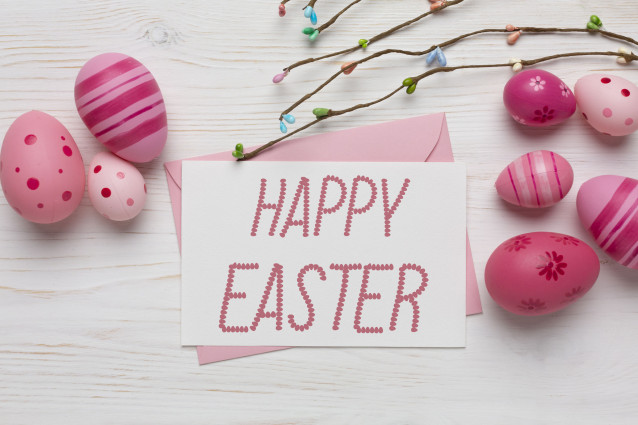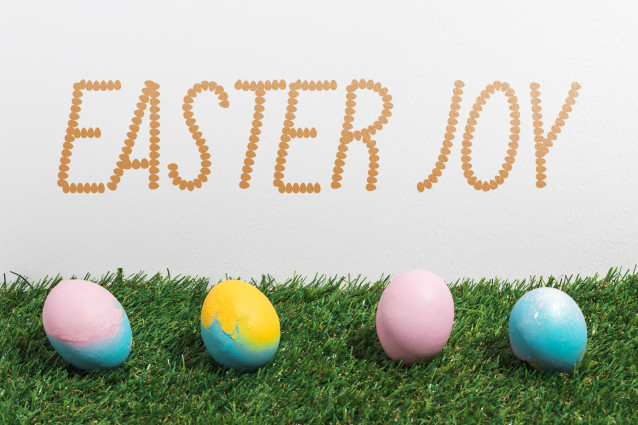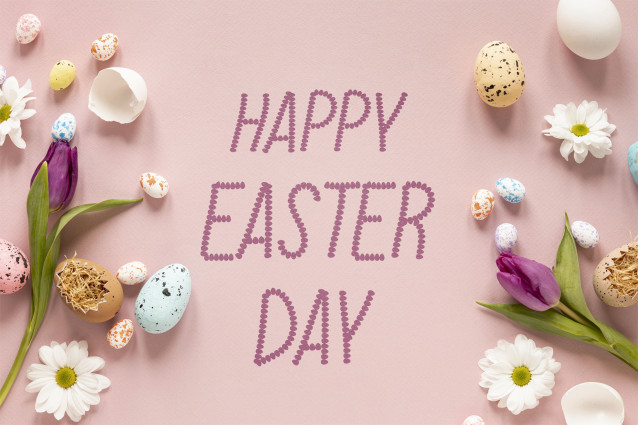
Easter Joy Font
Easter Joy Font is a bouncy, happy font that is perfect for Easter or springtime designs. The letters are bouncy and cheerful, with a happy, springtime feel. Easter Joy Font is the perfect font to use to create Easter-themed designs. It includes a variety of fun Easter stylized egg lines. EasterJoy is a playful and fun font that is perfect for creating Easter-themed designs. The font features a hand-drawn look with a playful, whimsical feel. It includes upper letters, as well as numbers and punctuation.